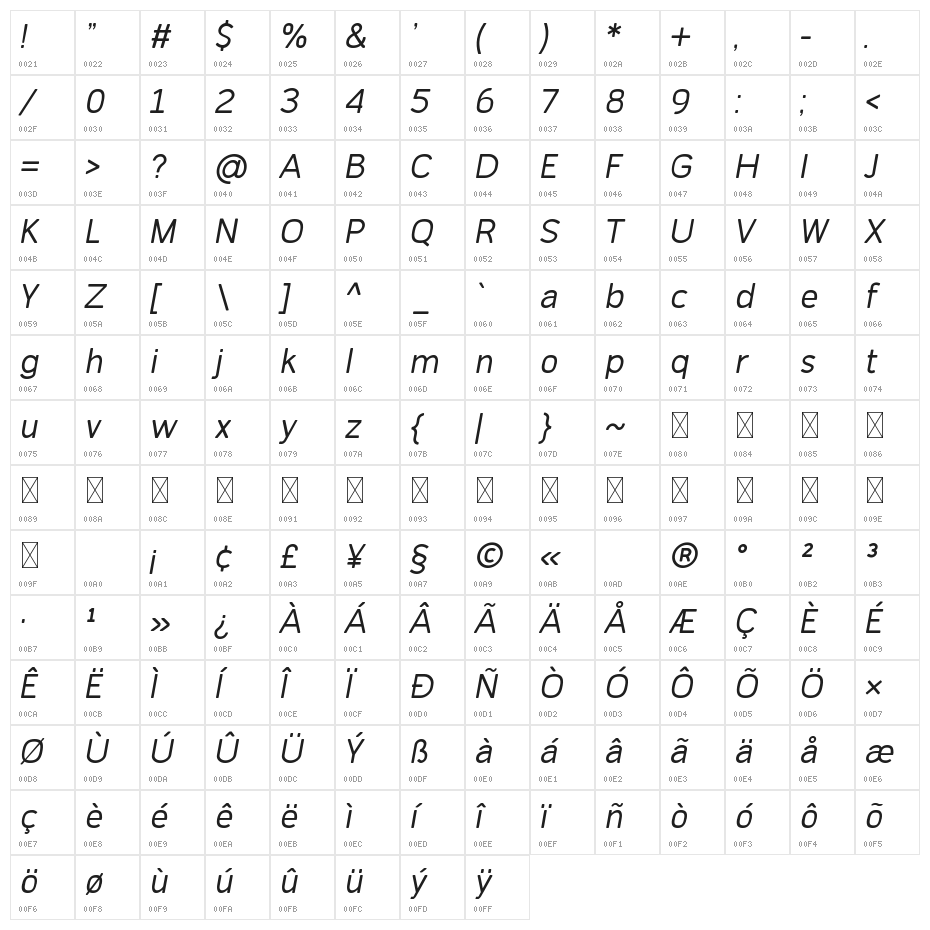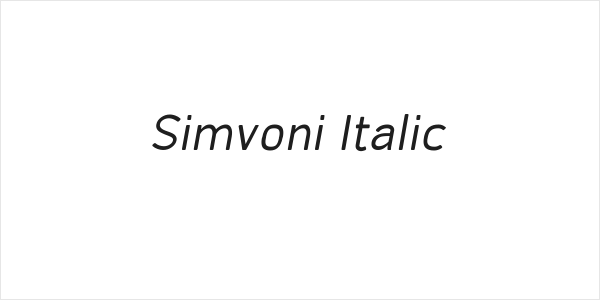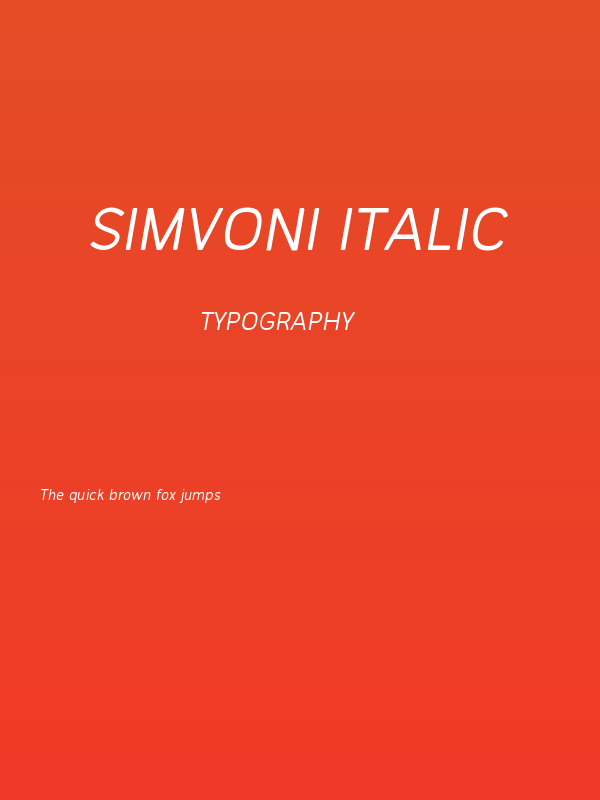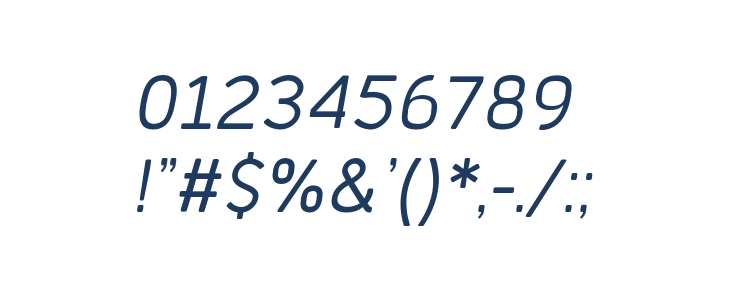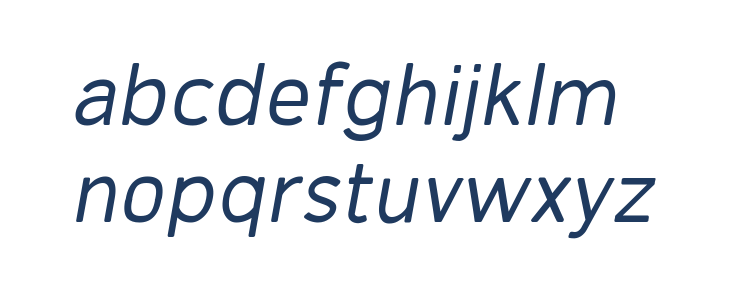
Simvoni Italic Font
Simvoni Italic Description
This font features a sleek and modern design with a slight slant, giving it an italicized appearance. The characters are clean and well-defined, with a consistent stroke width that maintains readability across various sizes. The uppercase letters are tall and elegant, while the lowercase letters are rounded and approachable. The numerals are clear and balanced, making them suitable for both text and numerical data. Special characters are distinct and harmonize well with the overall style, enhancing the font's versatility.